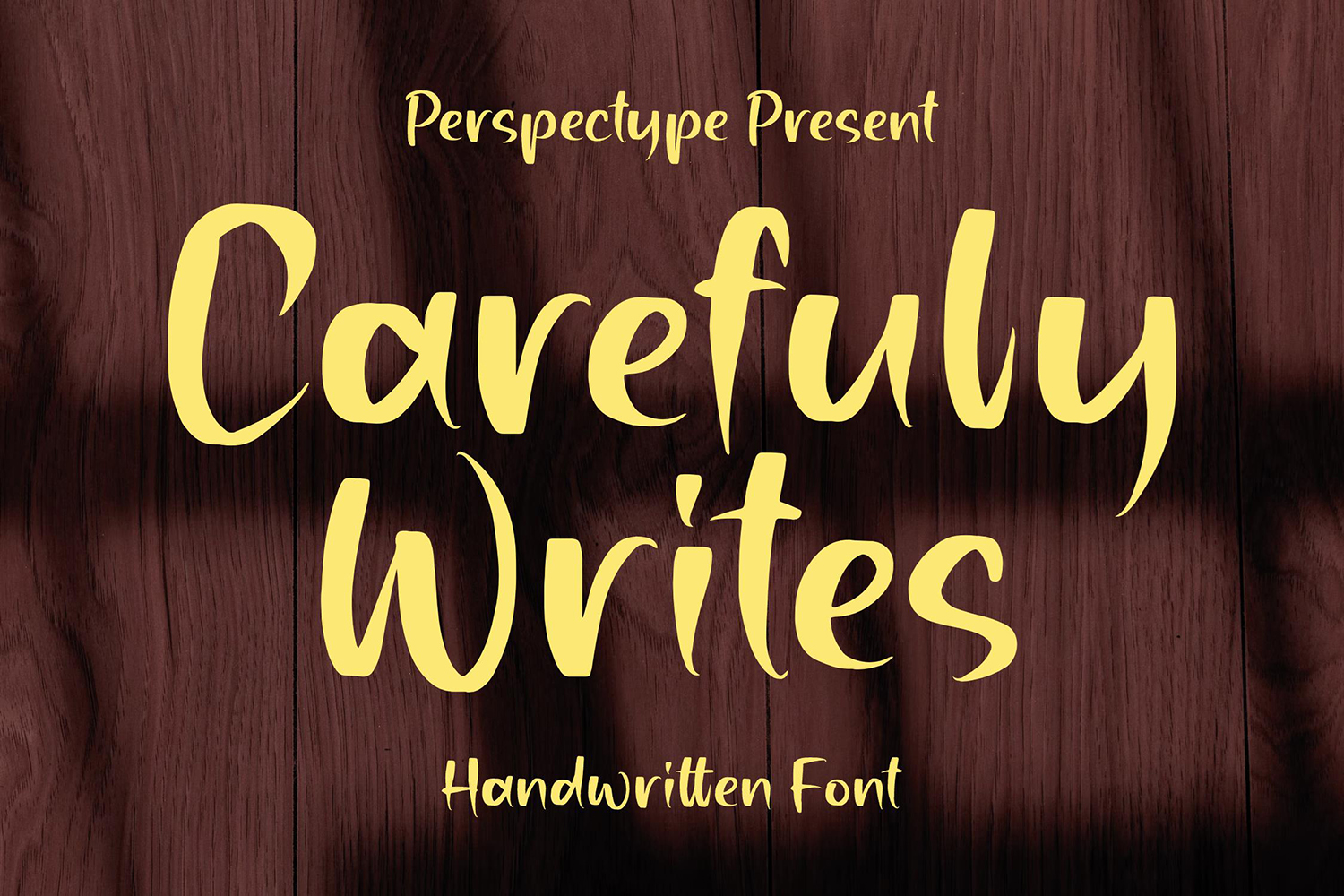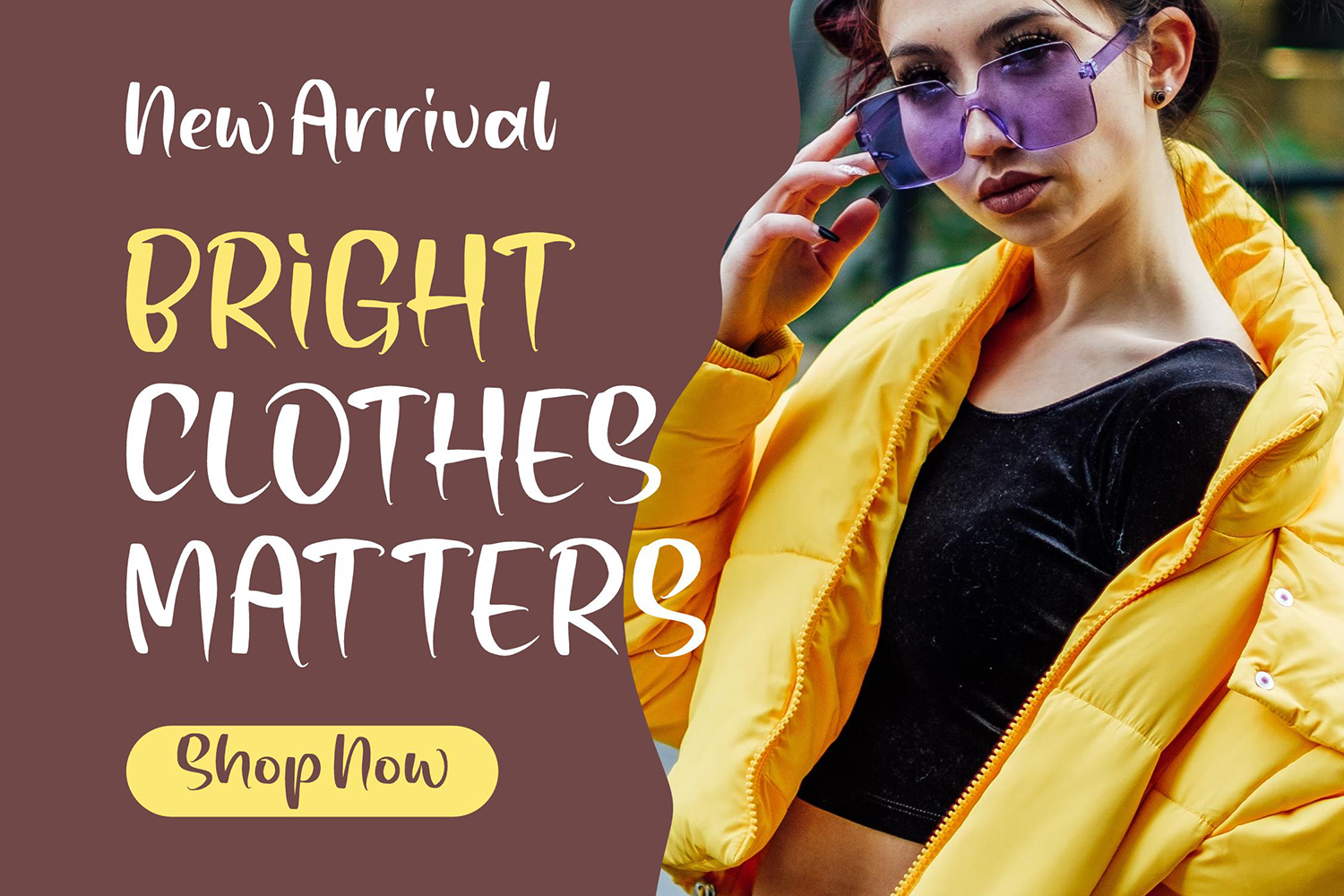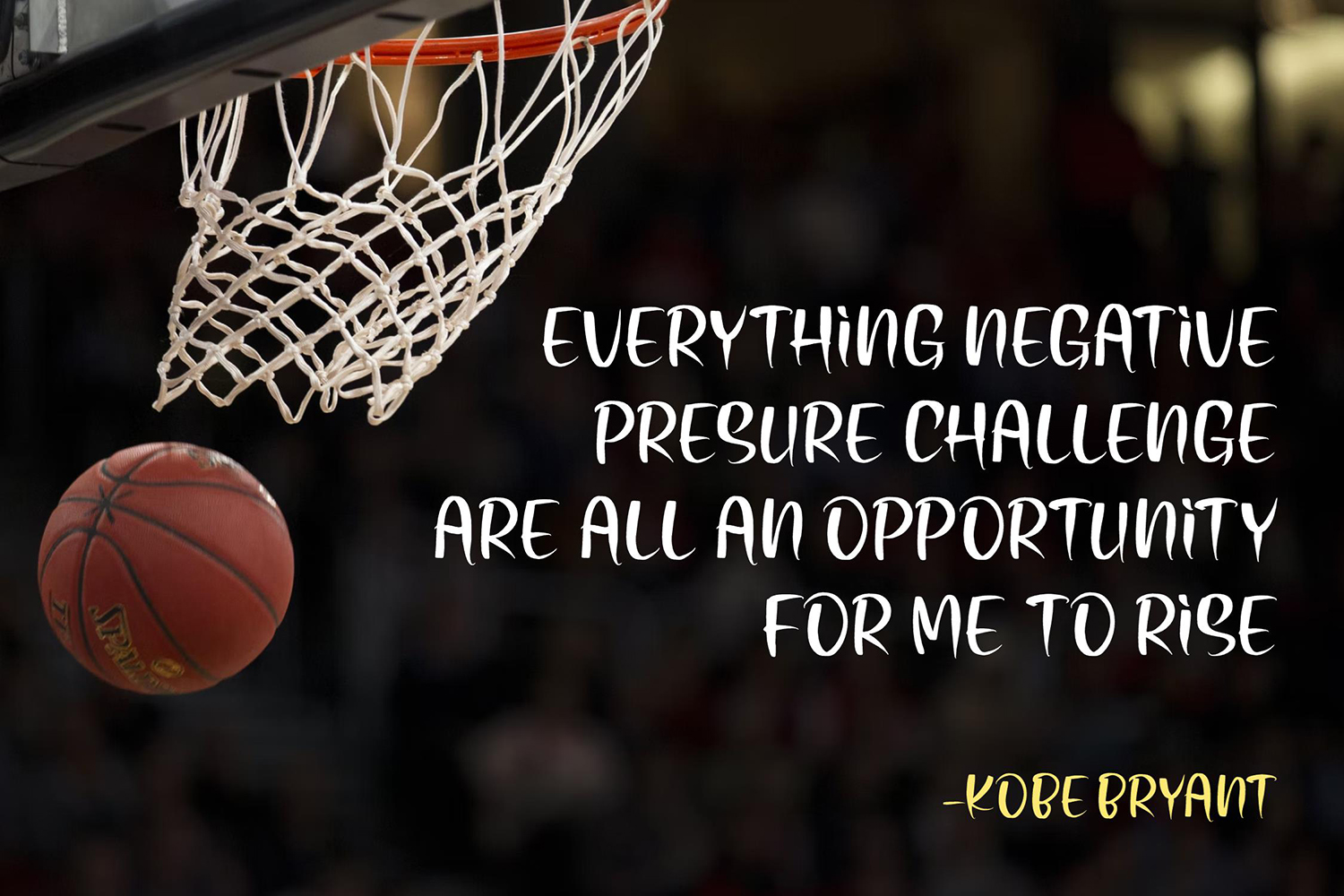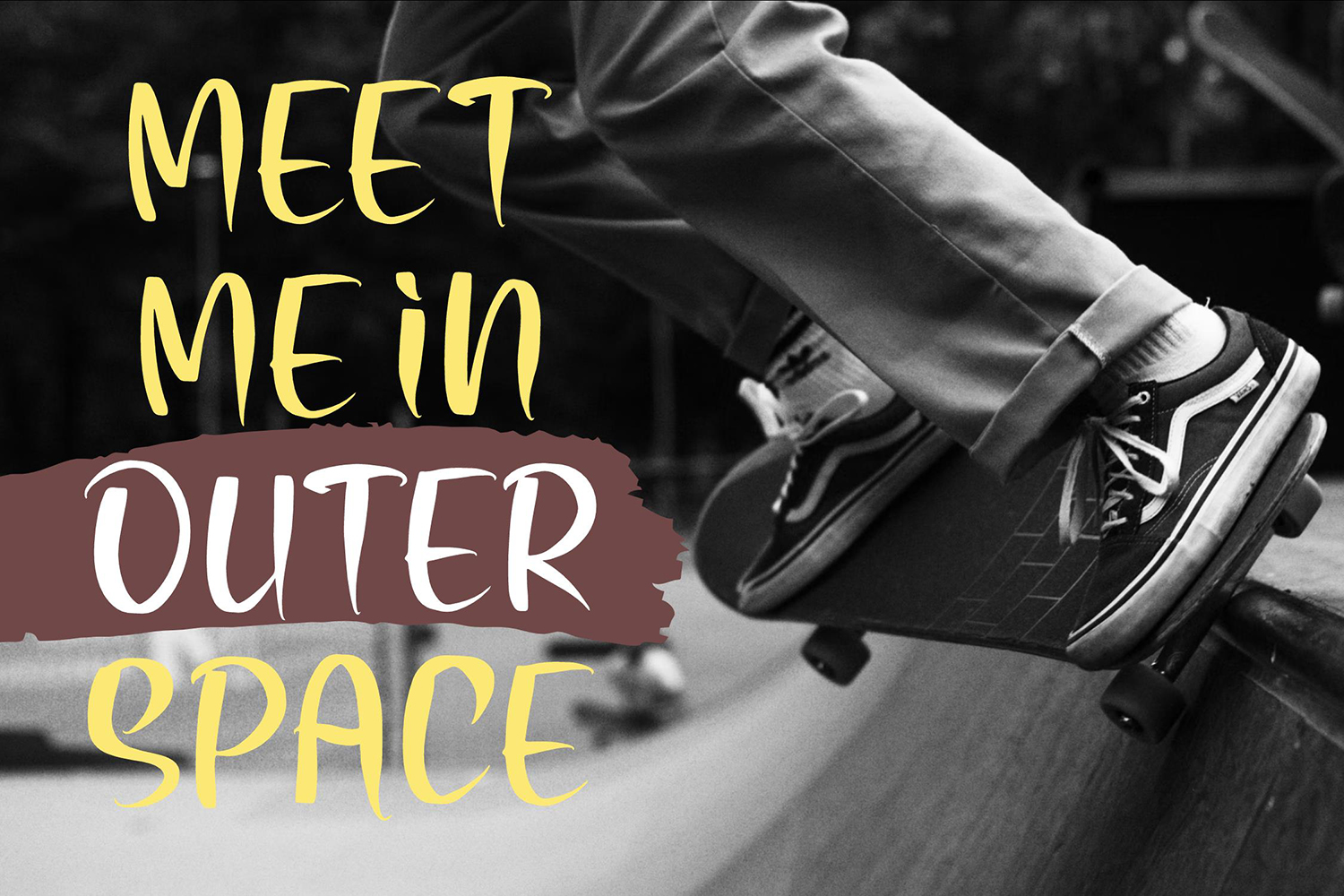
Carefuly Writes Free Font
Carefuly Writes Free Font is an enchanting handwritten font. This versatile script font has a wide spectrum of applications ranging from greeting cards to headlines and is guaranteed to add a romantic feel to your next project.